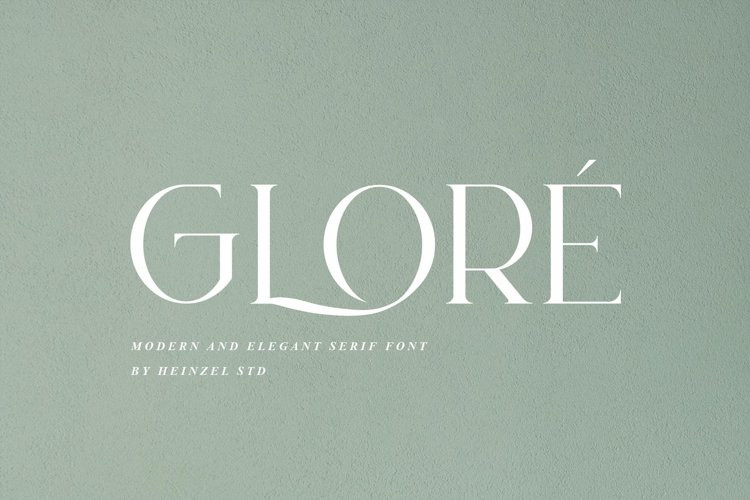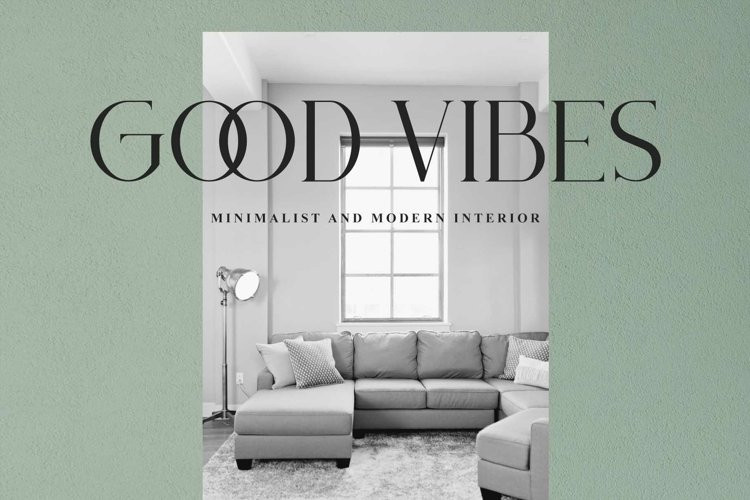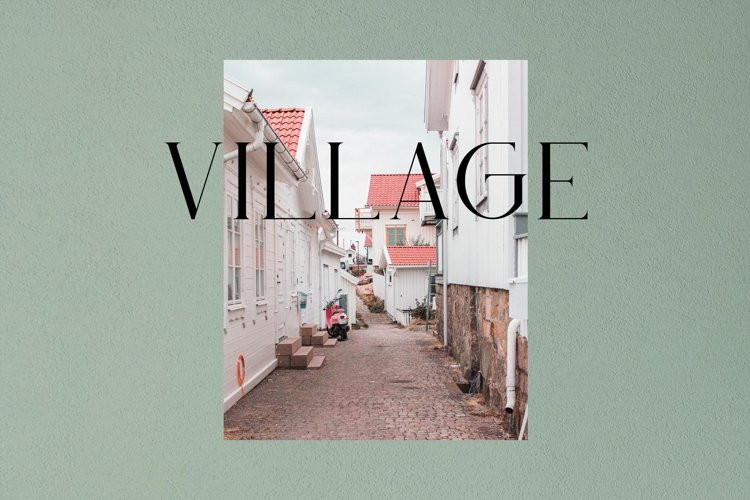
Gloré Font
Gloré FontGloré is an elegant and modern sans serif font. Fall for its ravishing style and use it to create gorgeous wedding invitations, beautiful stationary art, eye-catching social media posts, and much more! This font is PUA encoded which means you can access all of the amazing glyphs and ligature with ease!